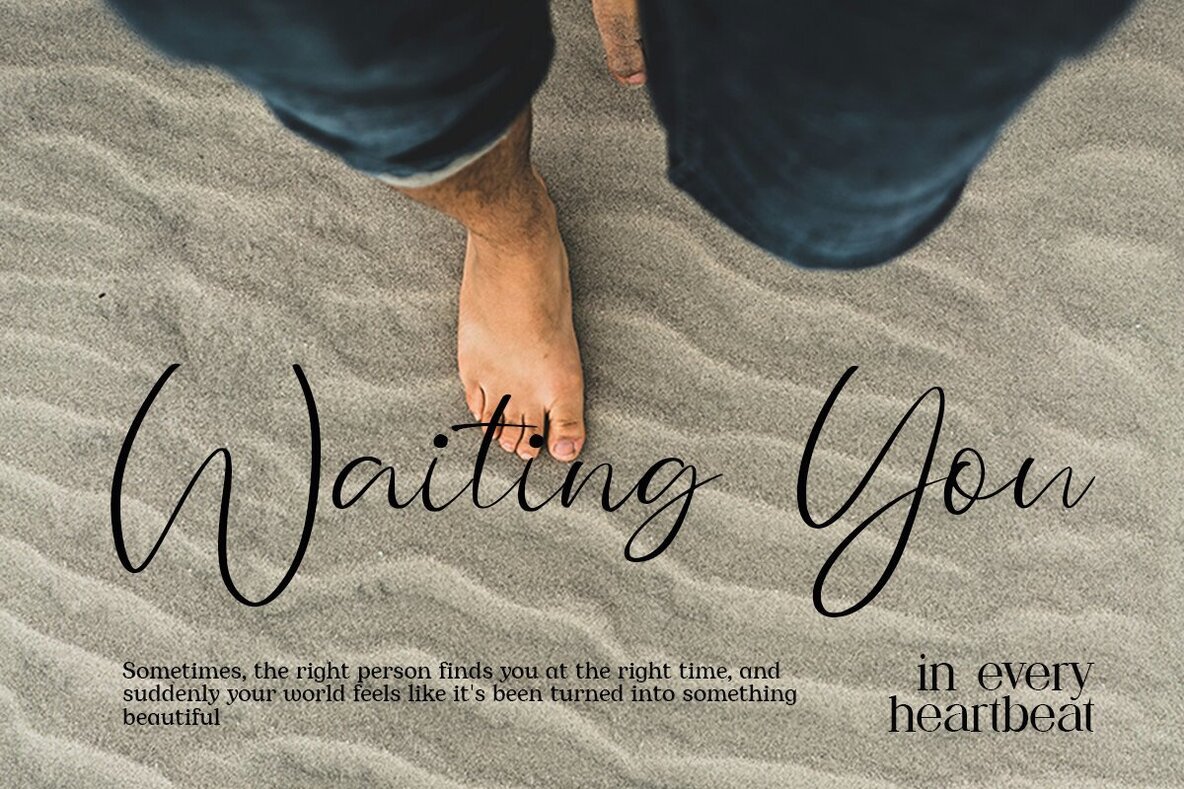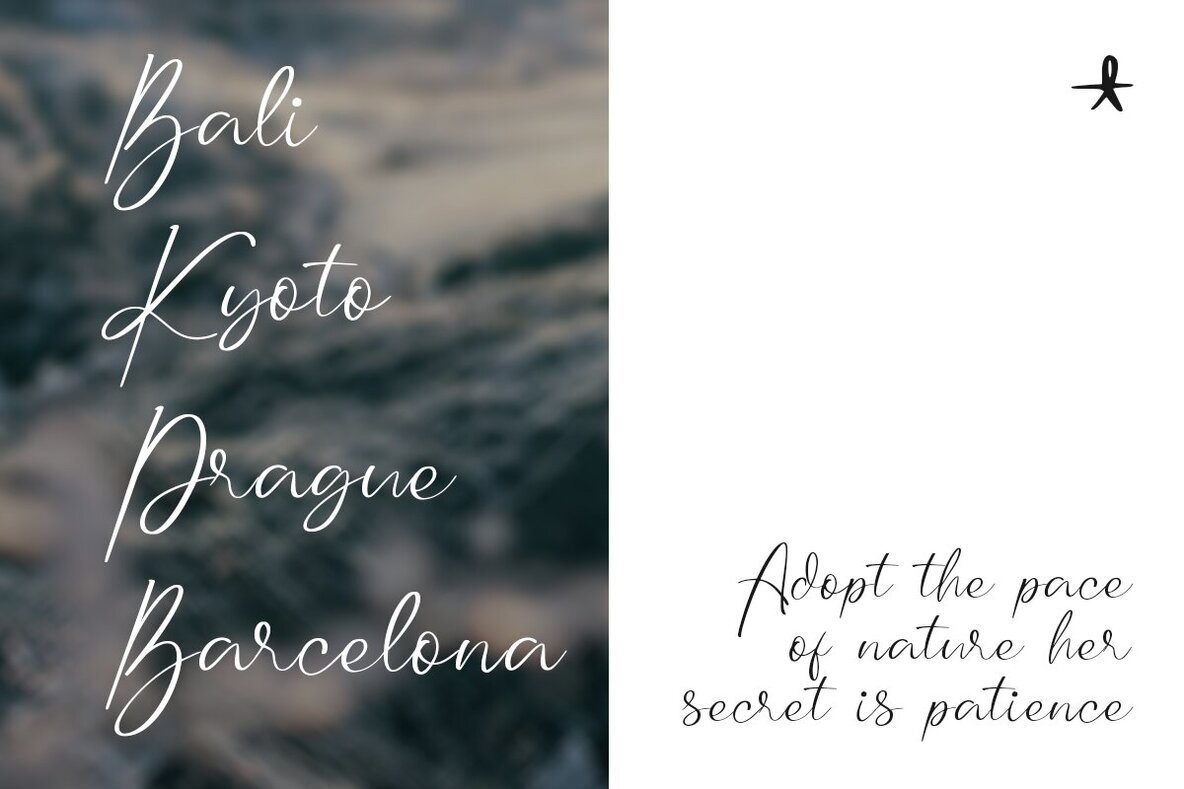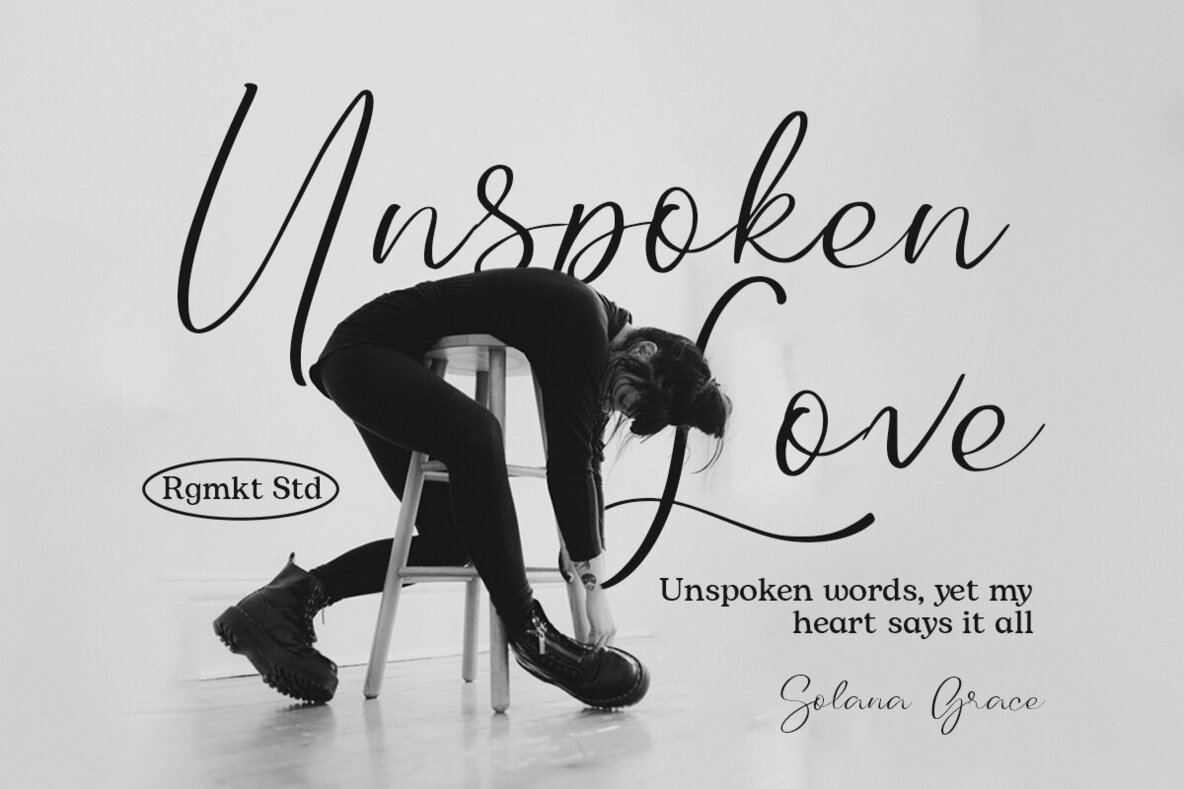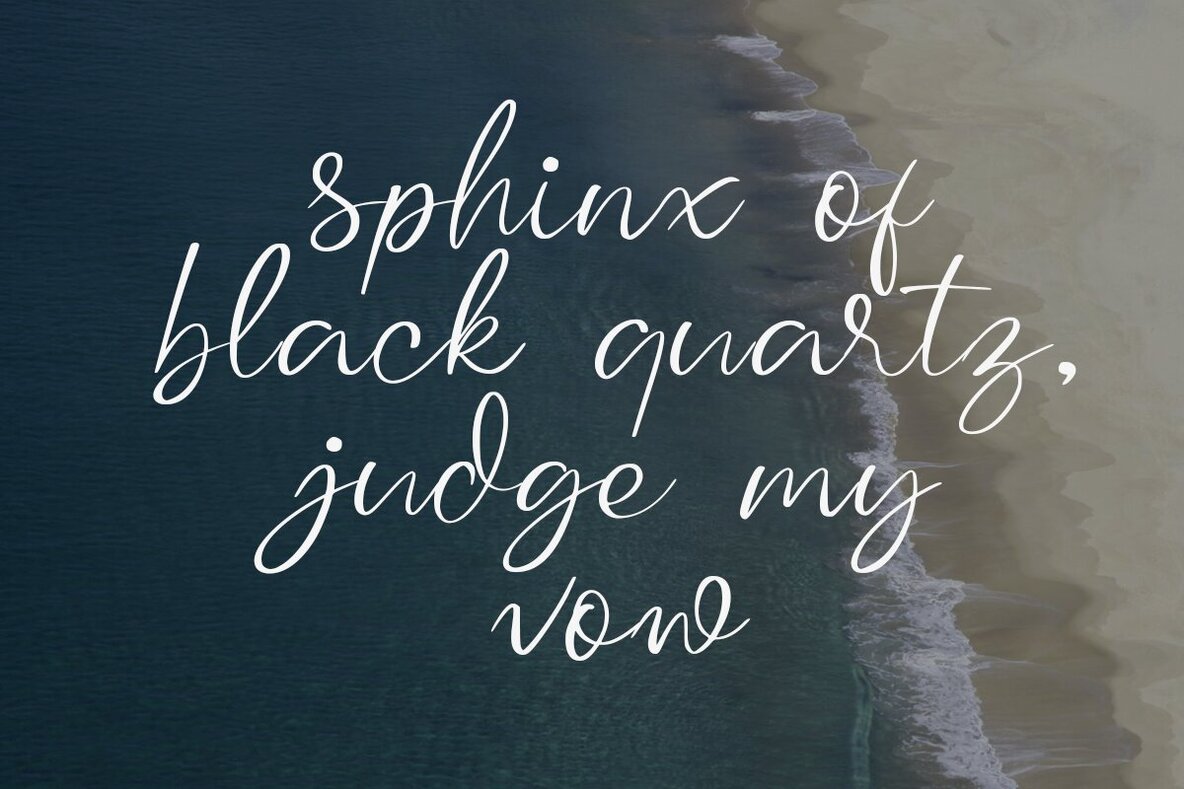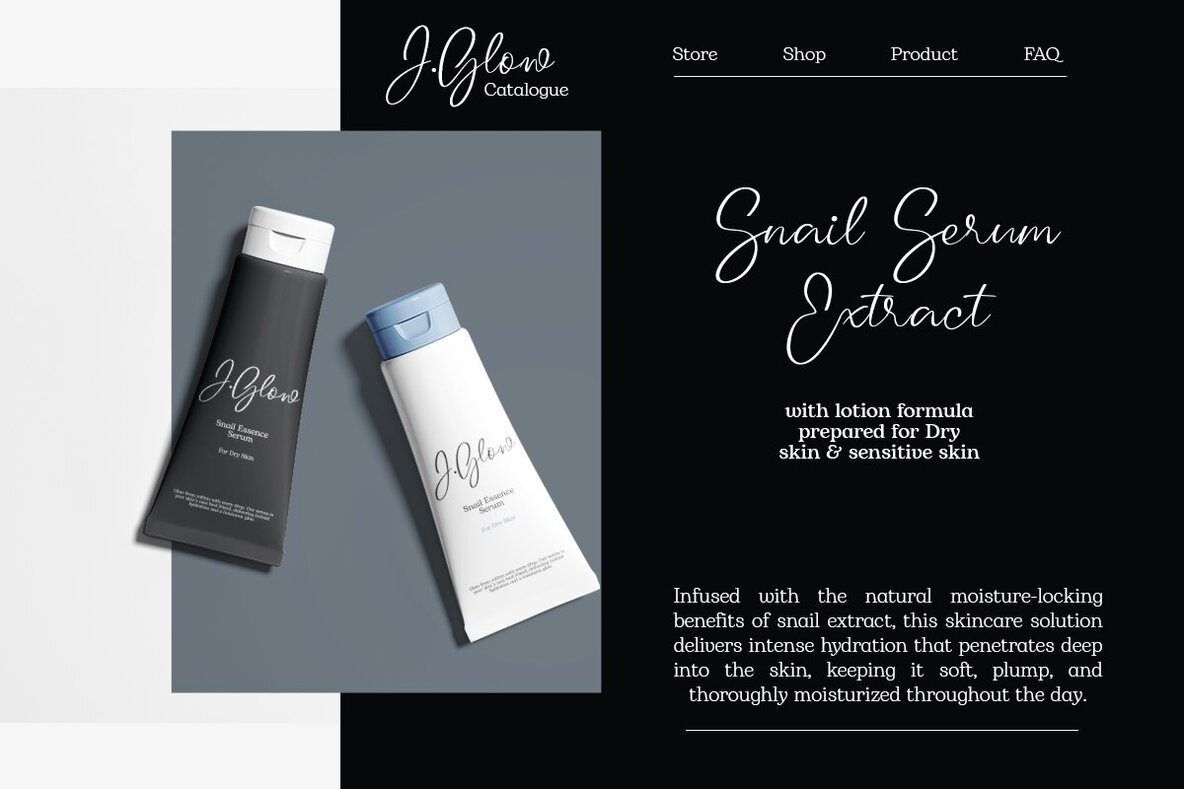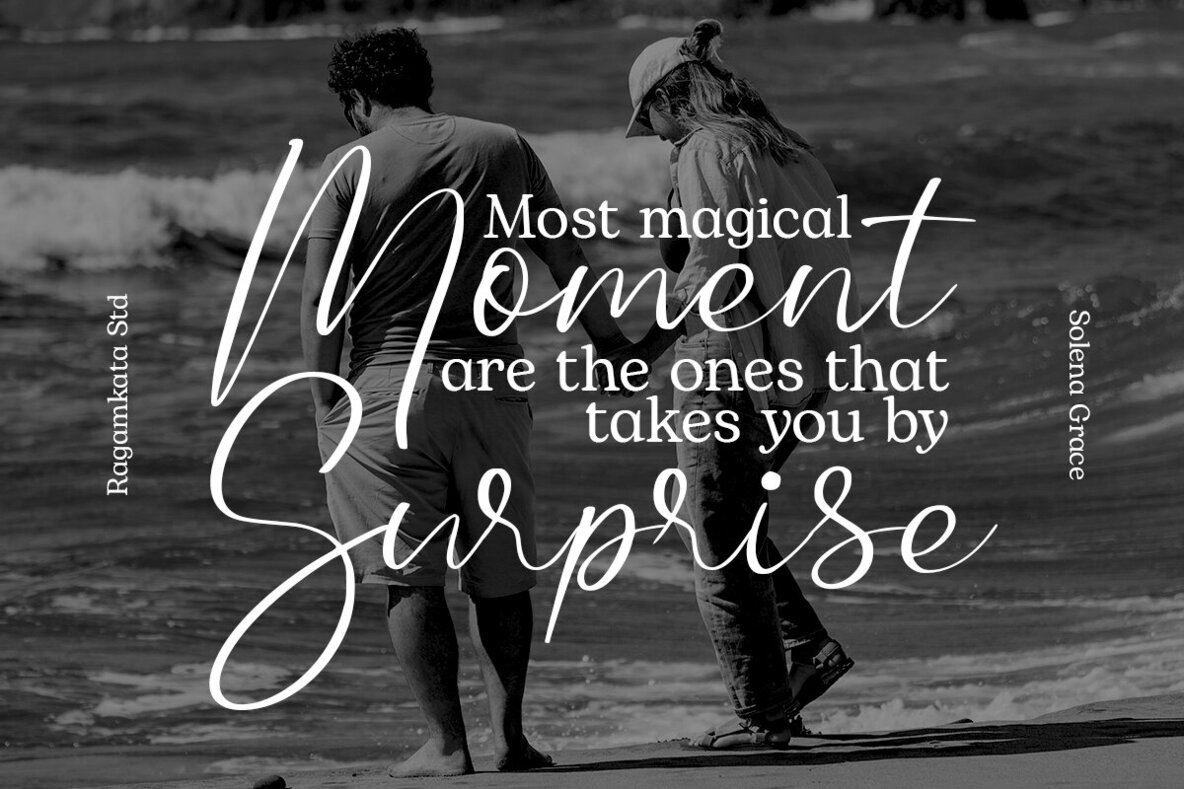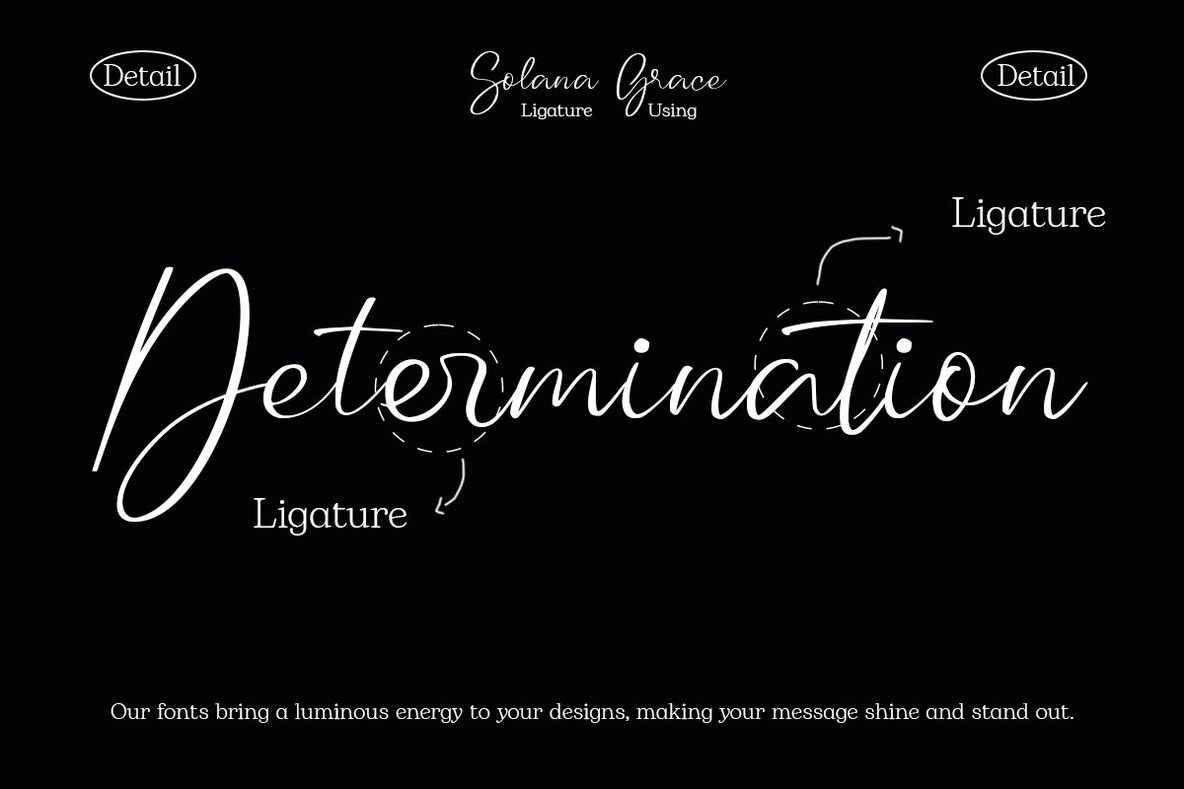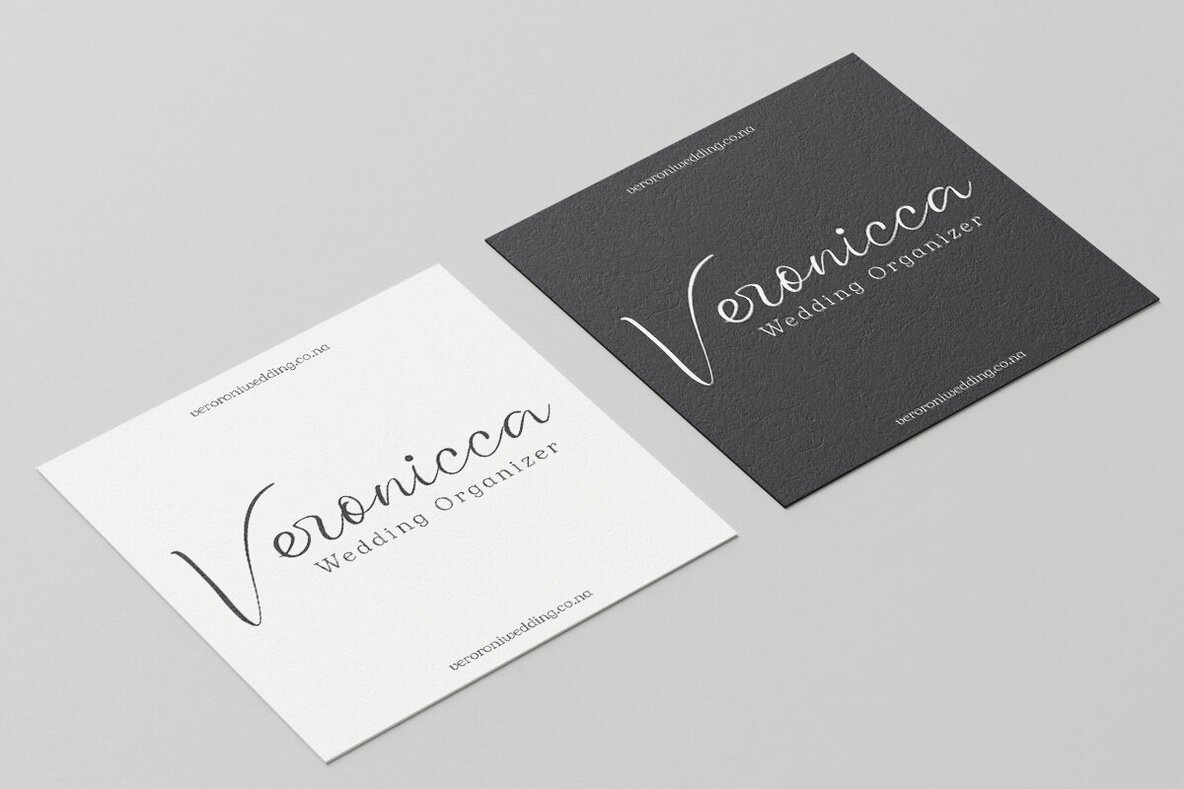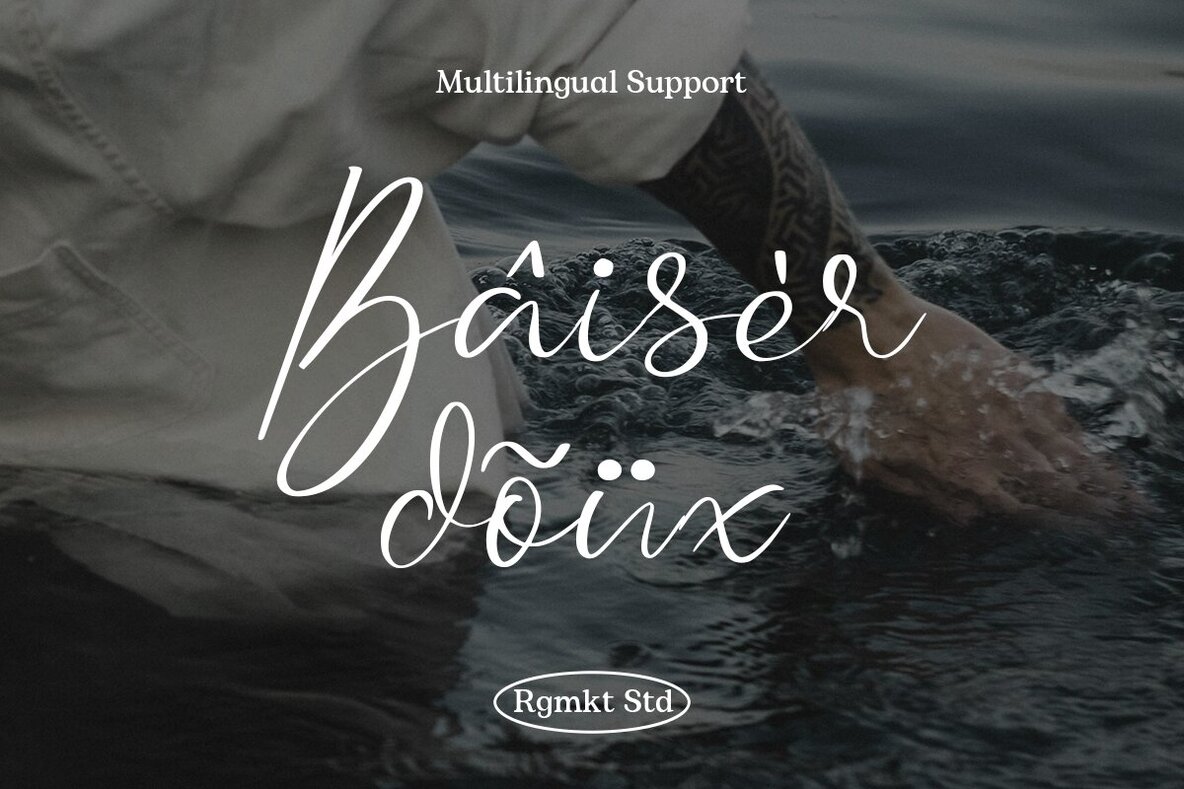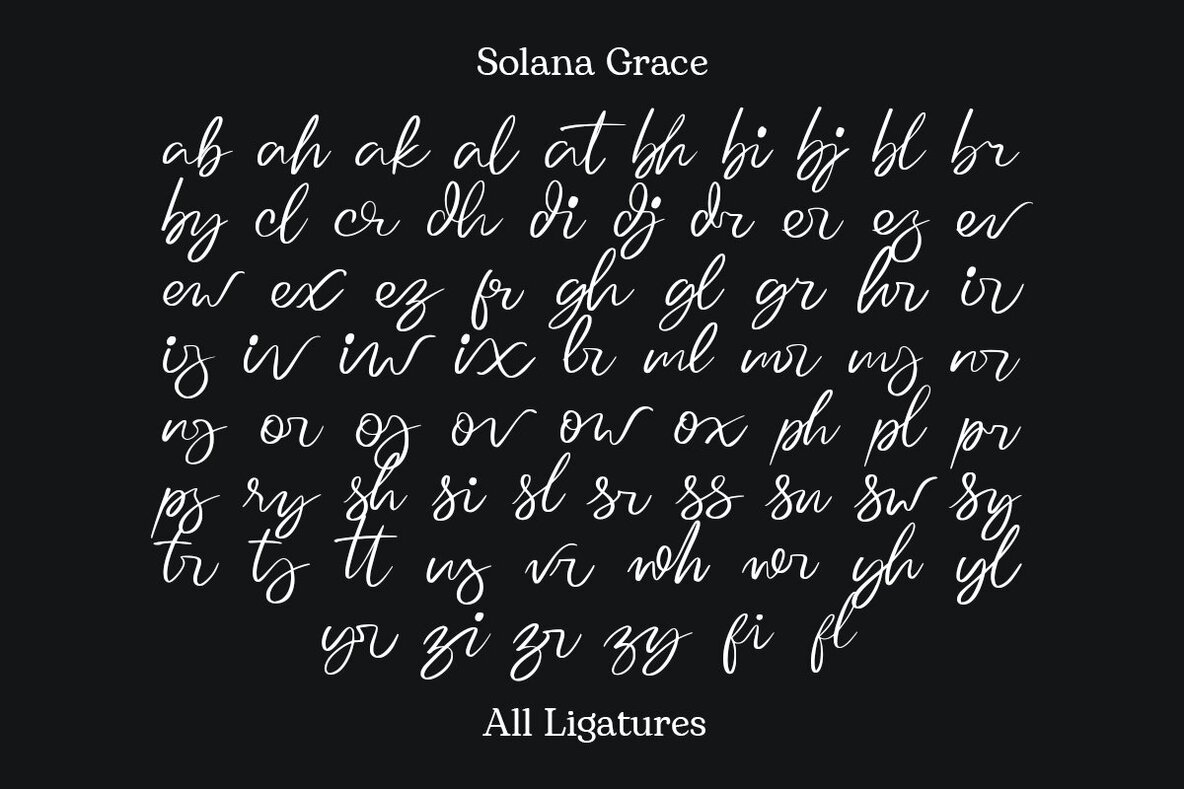
Solana Grace Font
Solana Grace Regular
Solana Grace is a sophisticated script font crafted to infuse your creative projects with elegance and charm. Its smooth, flowing curves and graceful letterforms provide a refined and beautiful touch, perfect for designs in need of a touch of sophistication.
Balancing modern aesthetics with classic script design, Solana Grace is versatile enough for both formal and creative uses. Its charming typeface embodies sophistication and grace, making it a valuable addition to any designer's toolkit.